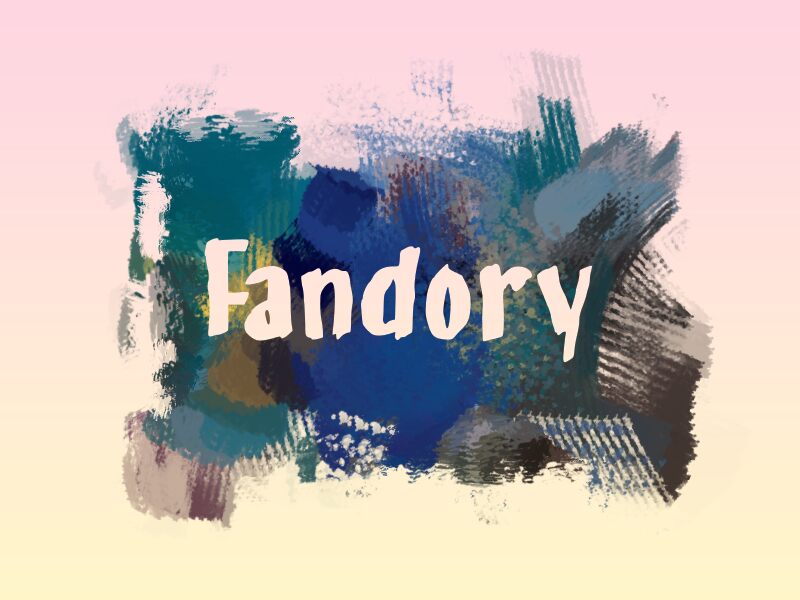
Fandory
Fandory is a captivating brush font that commands attention with its bold, expressive strokes. The condensed design lends a sense of urgency and dynamism, making it an excellent choice for headlines, branding, and editorial layouts. The sweeping, organic lines evoke a handcrafted aesthetic, infusing any text with a passionate, artisanal quality.
This font's versatility shines through, as it seamlessly transitions from modern, edgy designs to vintage, nostalgic applications. Whether used for packaging, event posters, or website headers, Fandory's unique character will elevate the visual impact, adding a distinctive, memorable touch to any project. Its striking yet legible form makes it a versatile tool for designers seeking to make a bold, impactful statement.